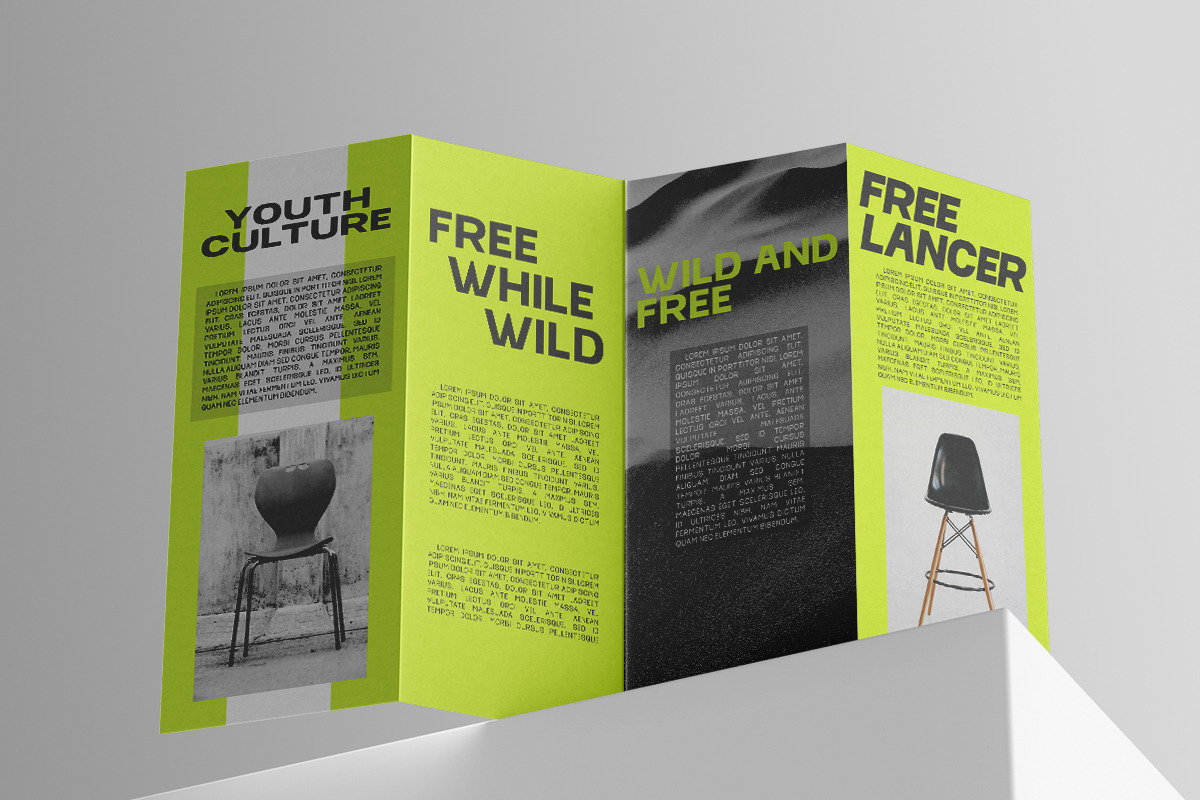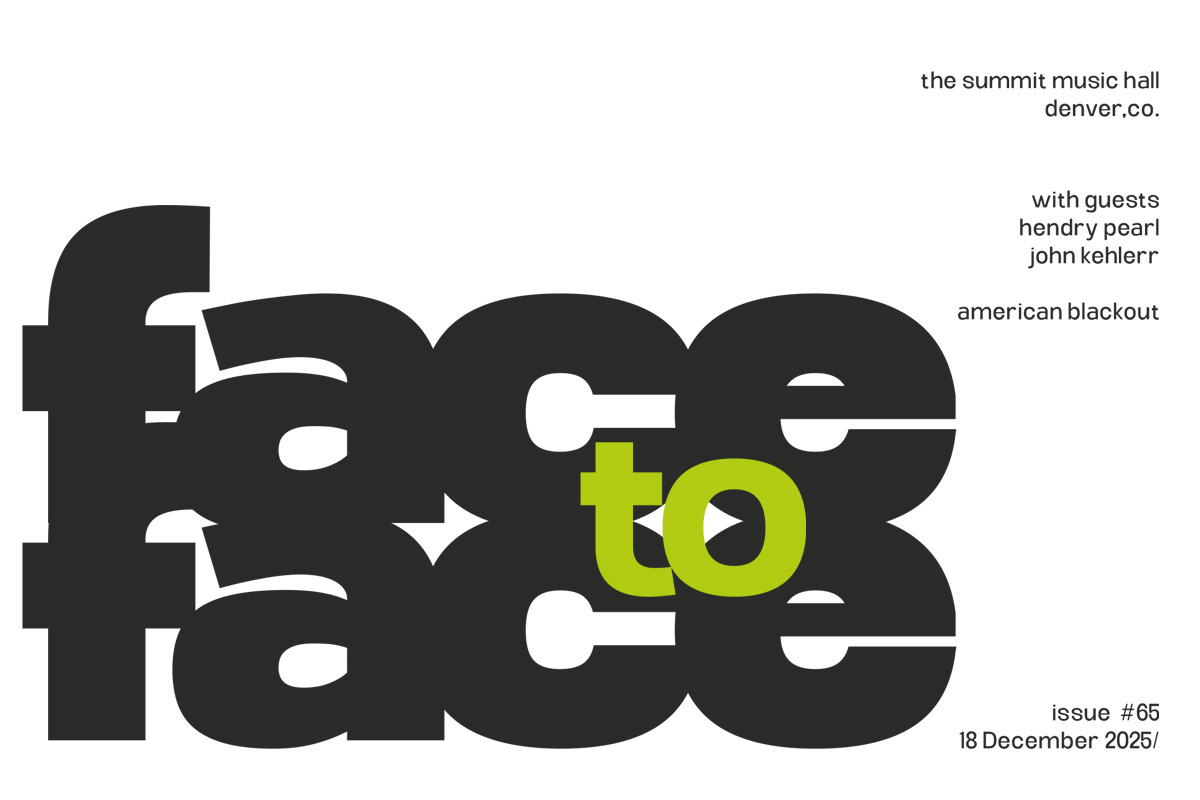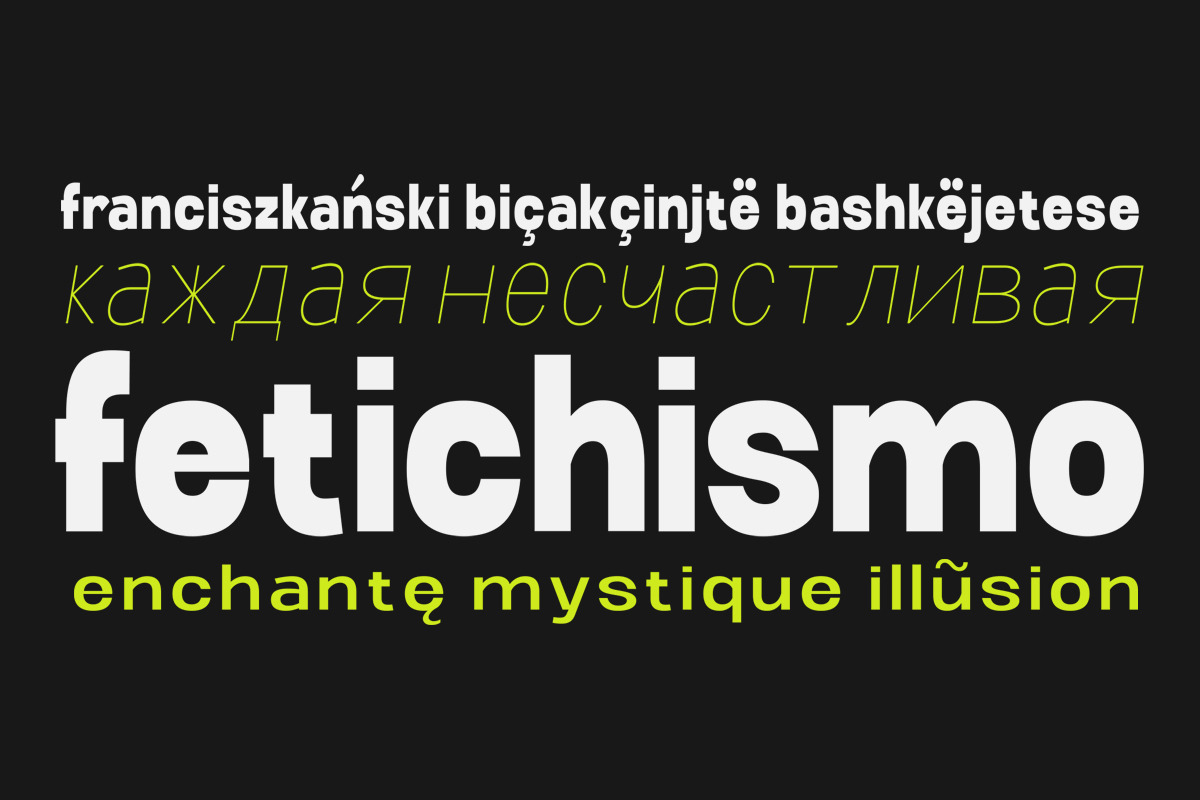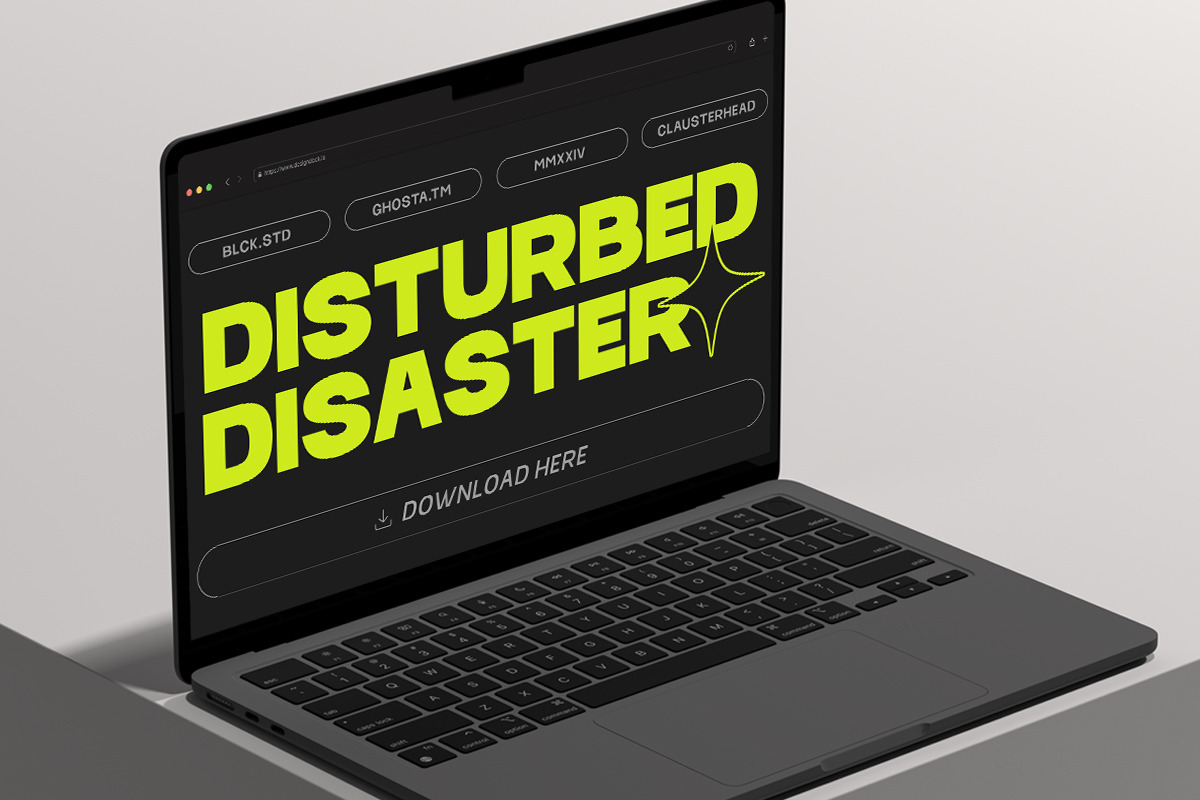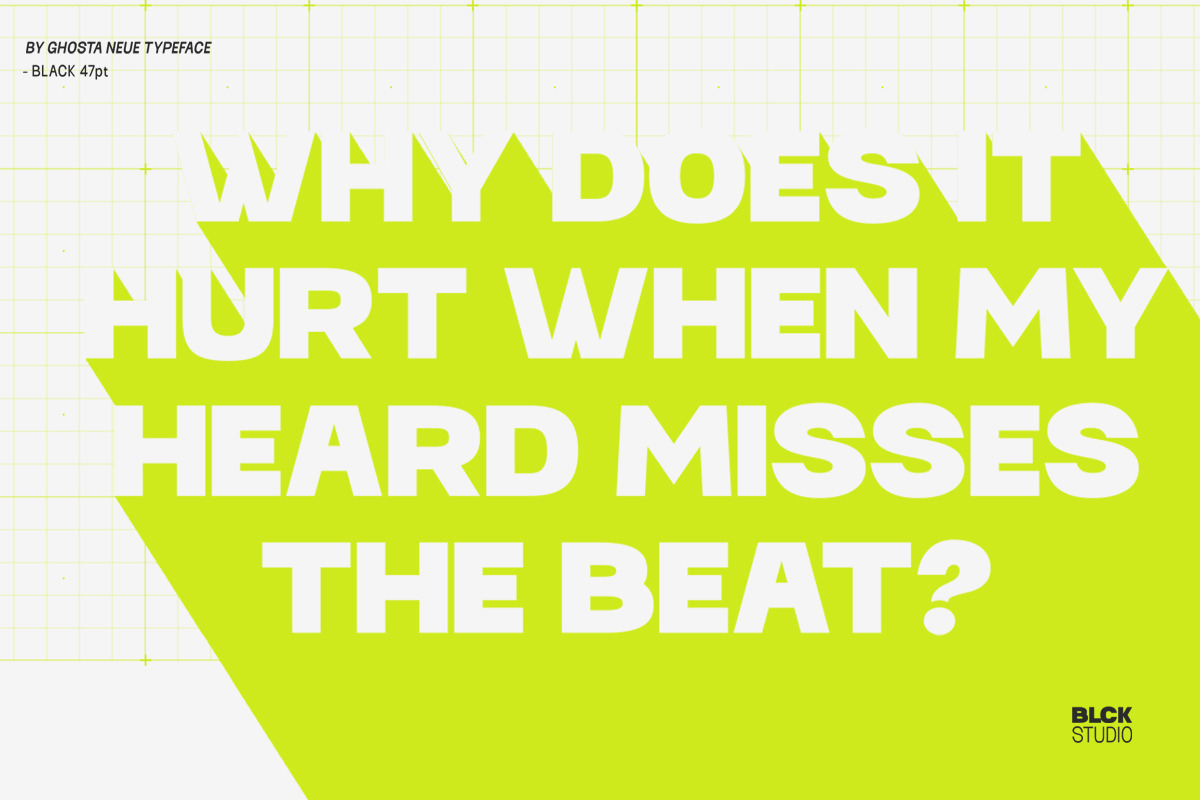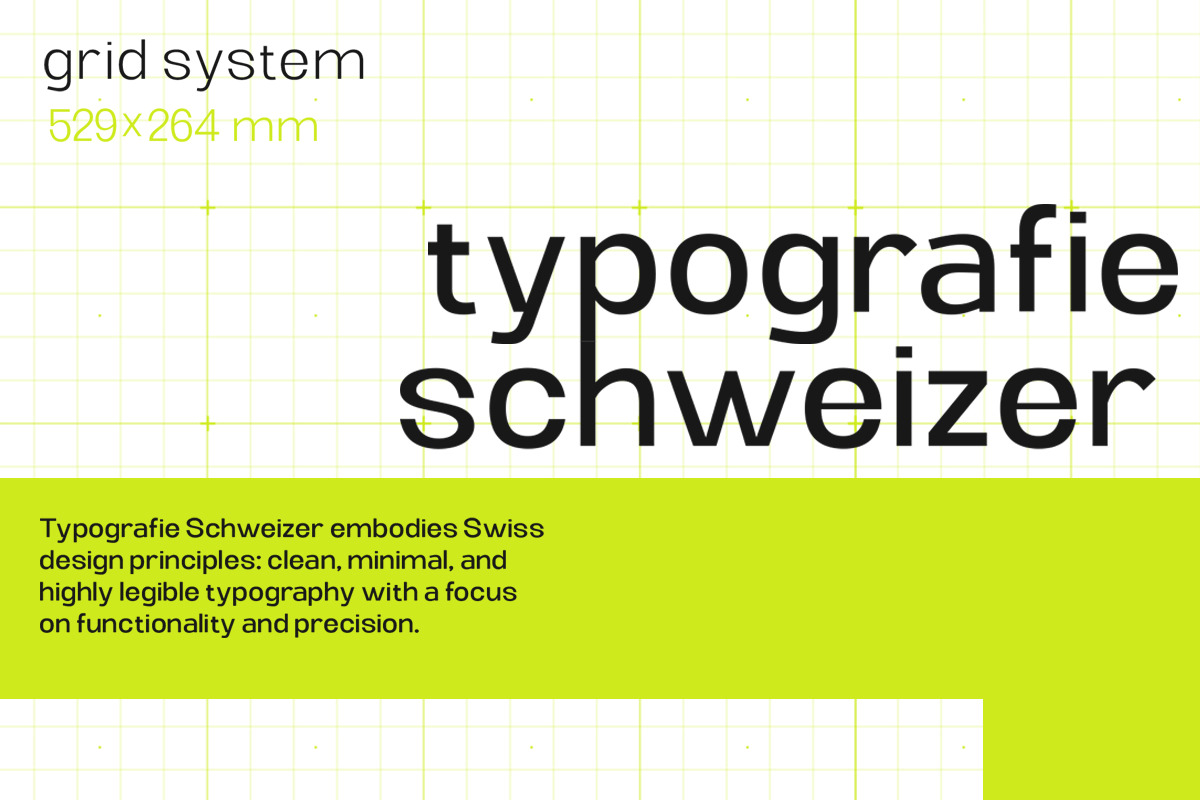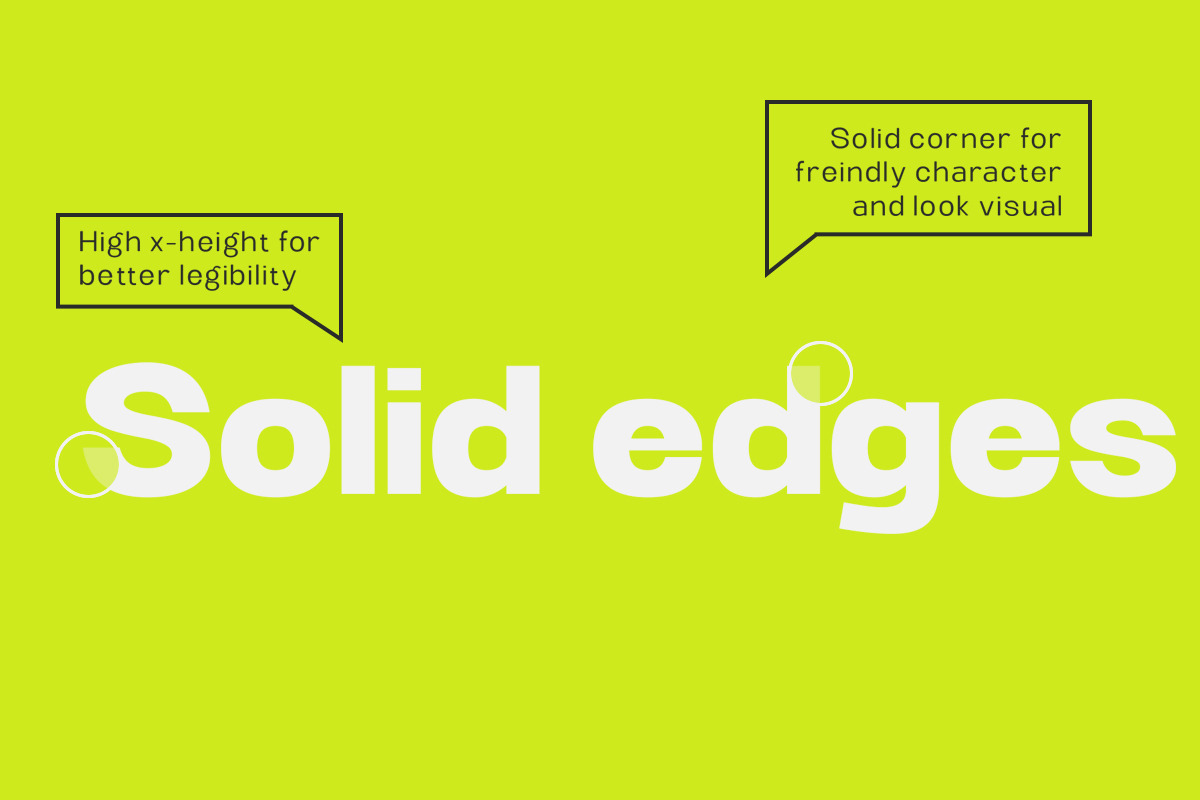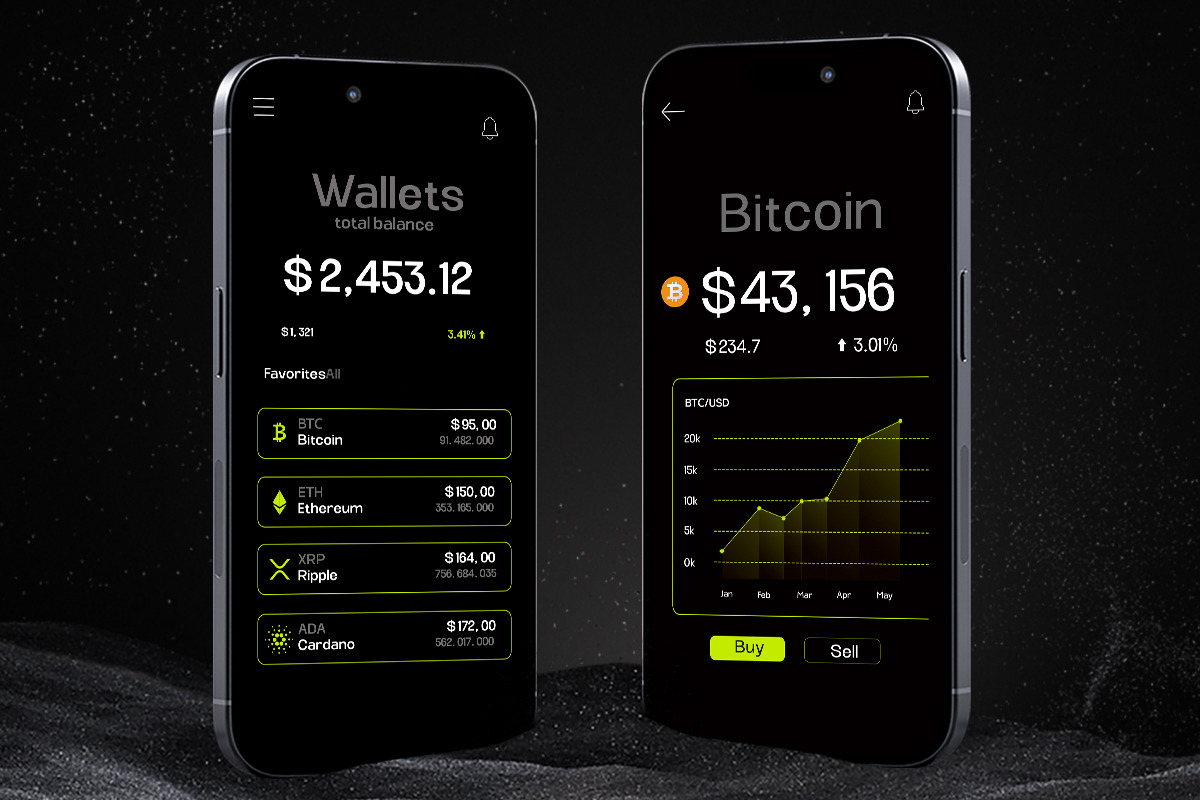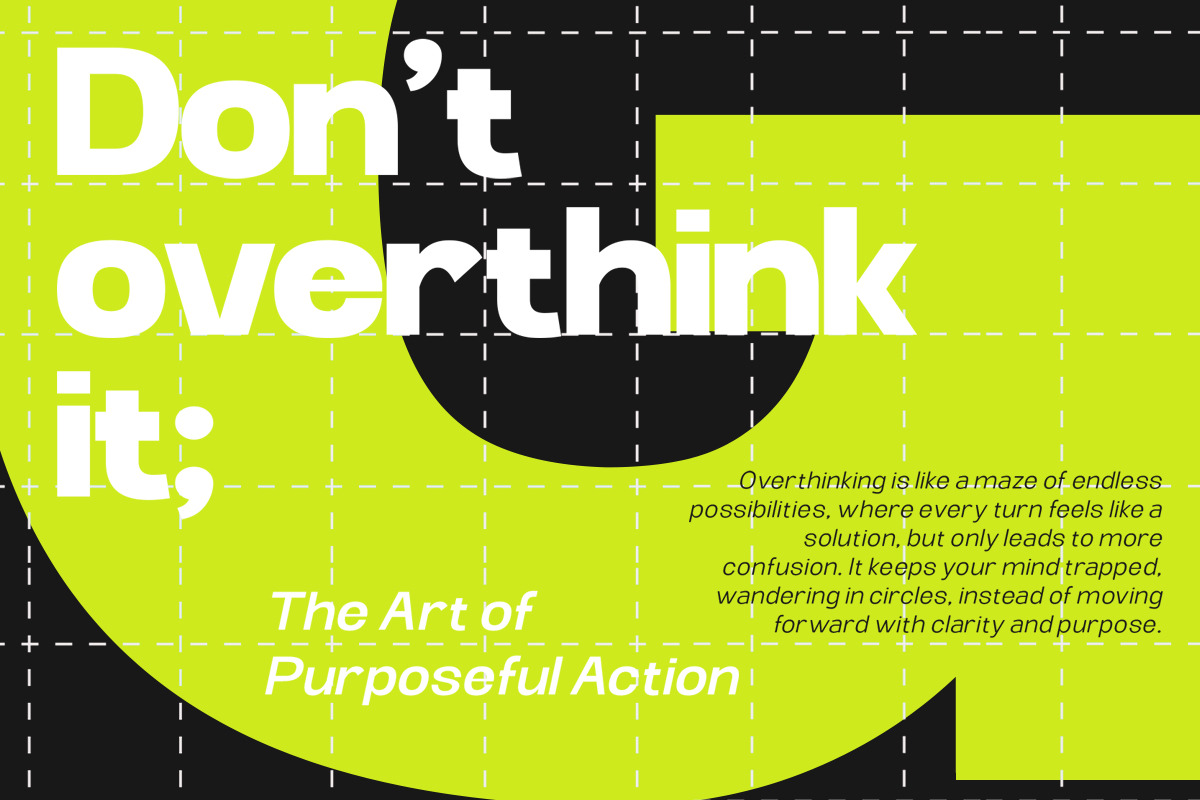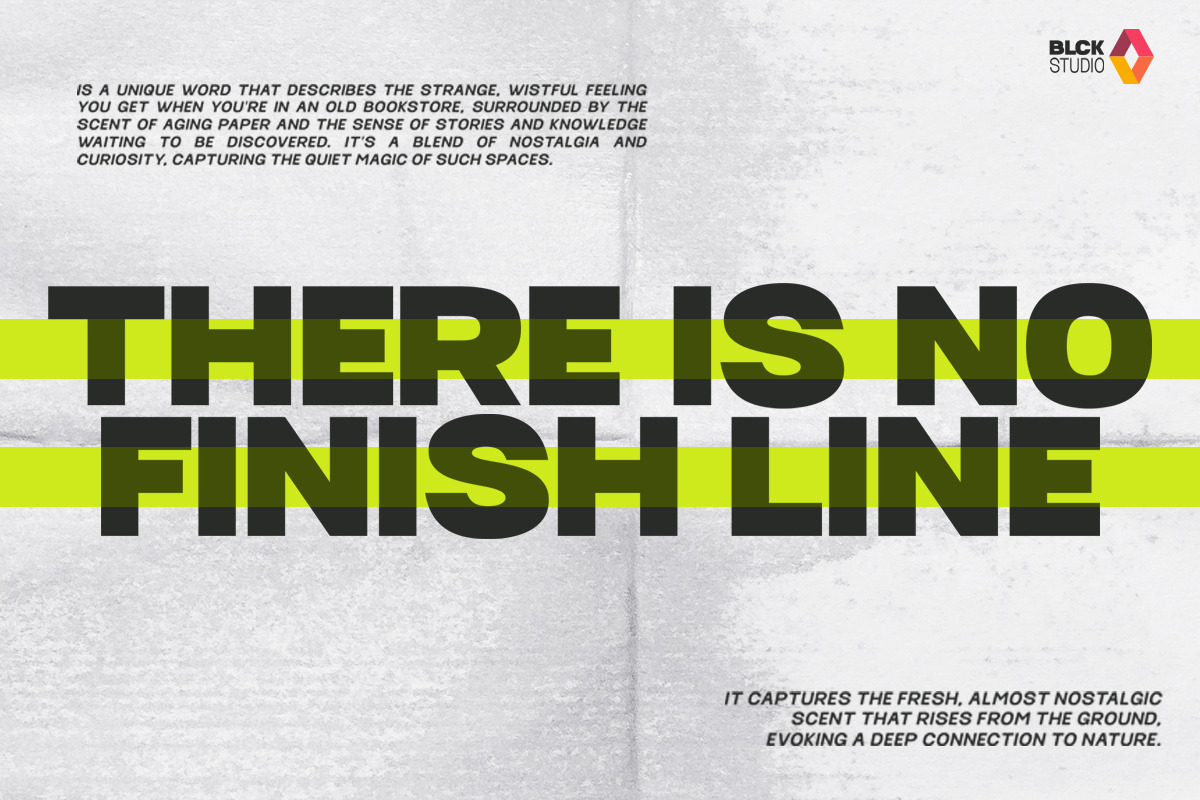
Ghosta Neue
Ghosta Neue is a dynamic and comprehensive variable type family crafted for both readability and stylistic versatility. Its three adjustable axes—weight, width, and slant—provide a spectrum of typographic possibilities. The weight axis lets users fine-tune text from ultra-thin to heavy bold, adapting effortlessly to different visual hierarchies. The width axis expands from condensed to extended, making it ideal for fitting text within constrained or spacious layouts, while the slant axis offers subtle to pronounced italicization, allowing a natural shift between formal and expressive tones.
The typeface’s geometric precision and smooth, rounded forms give it a contemporary aesthetic that remains legible and clean at various scales. Ghosta Neue maintains its character and clarity across media—whether it’s a refined print layout, a sleek digital interface, or a bold branding application. Its extensive range makes it a go-to for designers seeking a unified type system with high adaptability and a modern, polished look. Typeface Features:
- 448 Glyphs
- 3 Subfamilies: Weight, Slant, Width
- 6 Weight: Thin, Light, Regular, Semi Bold, Bold, Black
- Complete Collection: 54 Styles + Variable Font
- Kerning